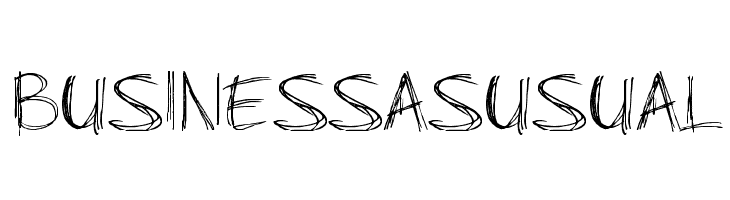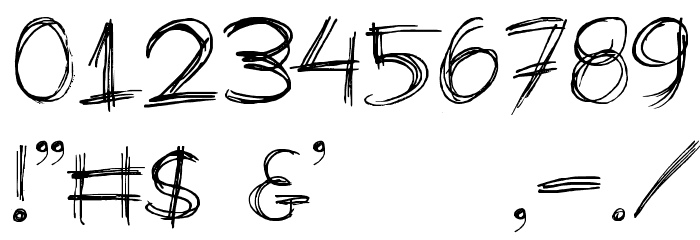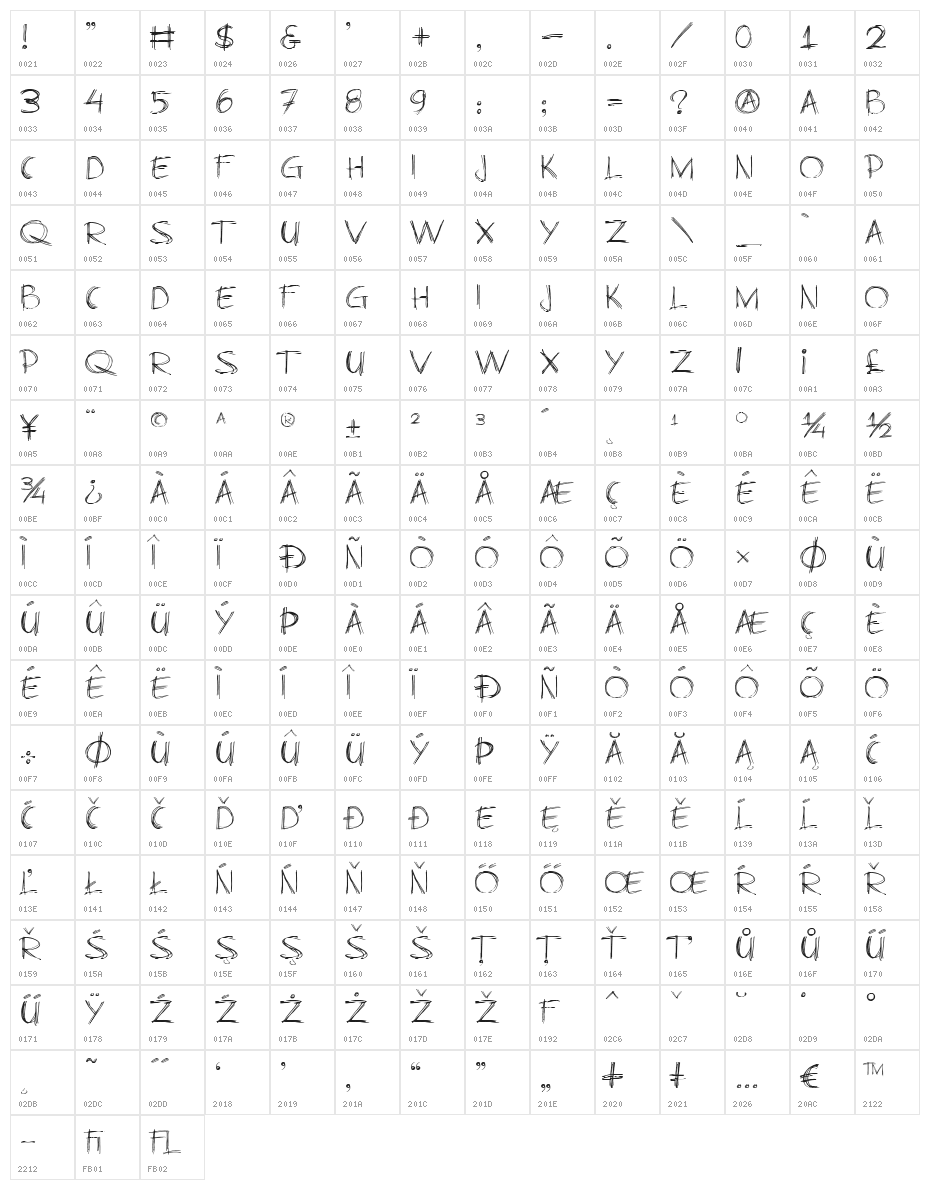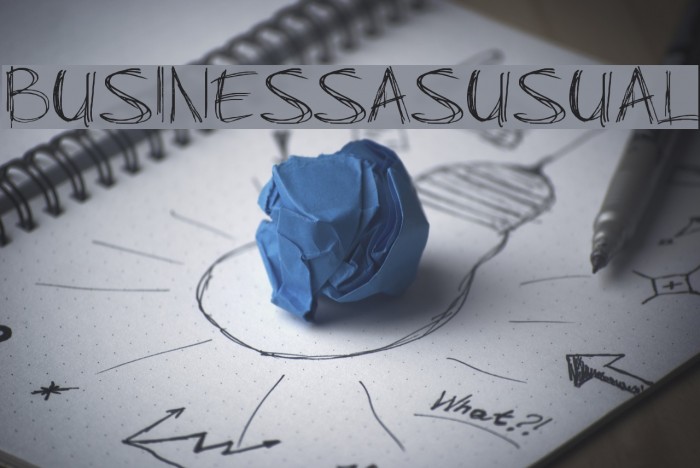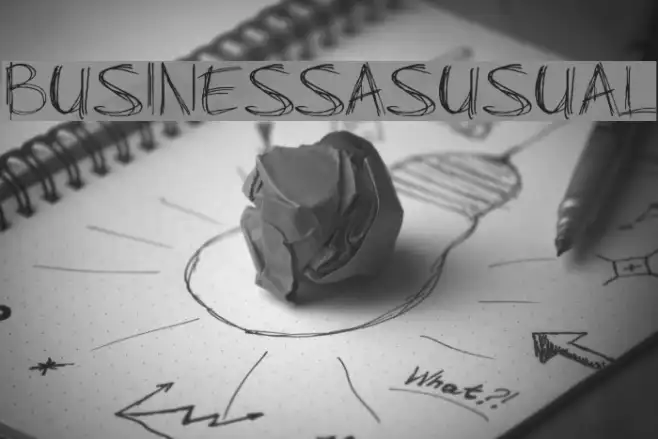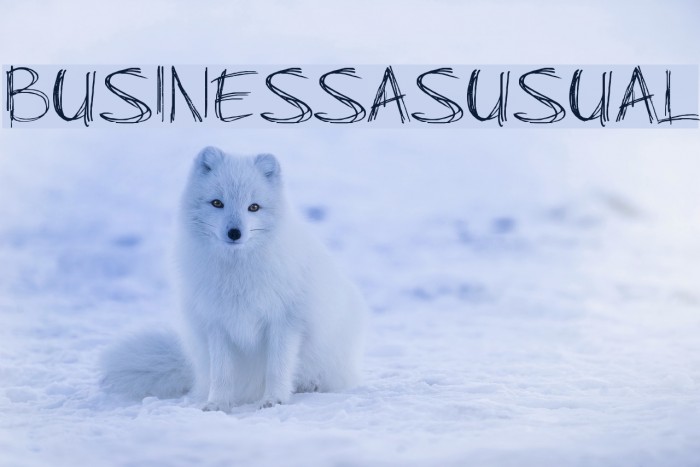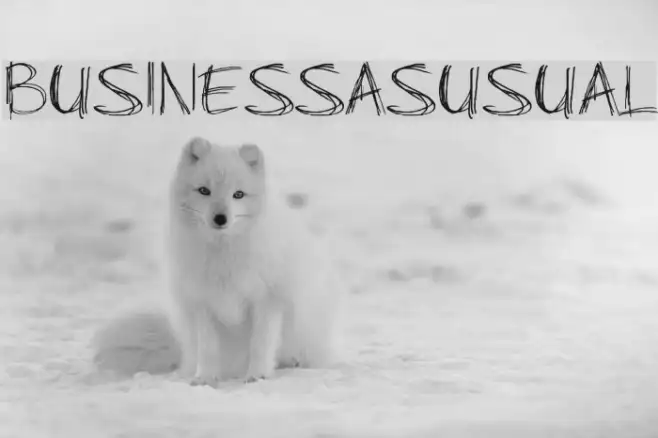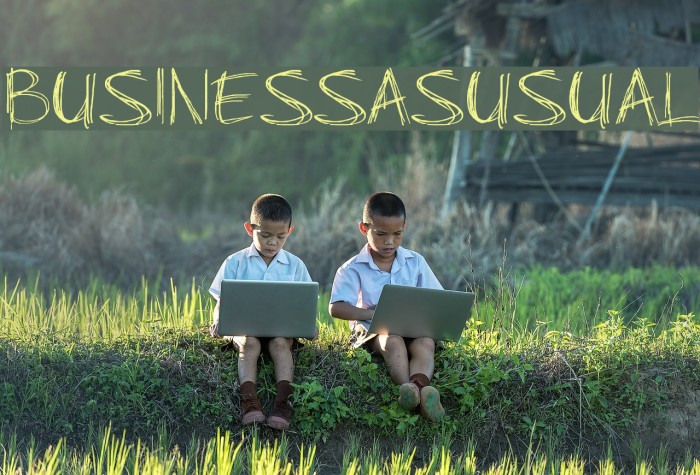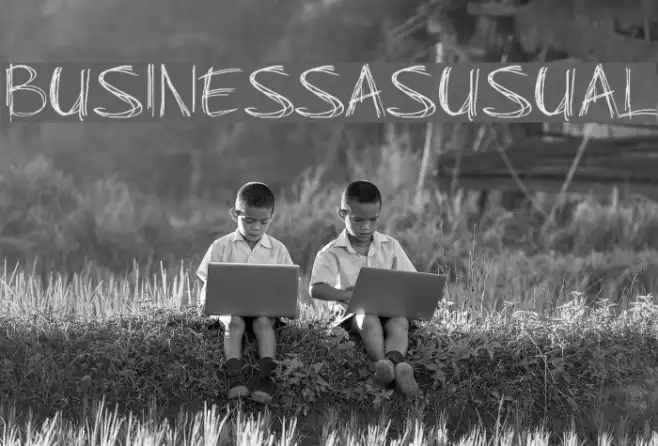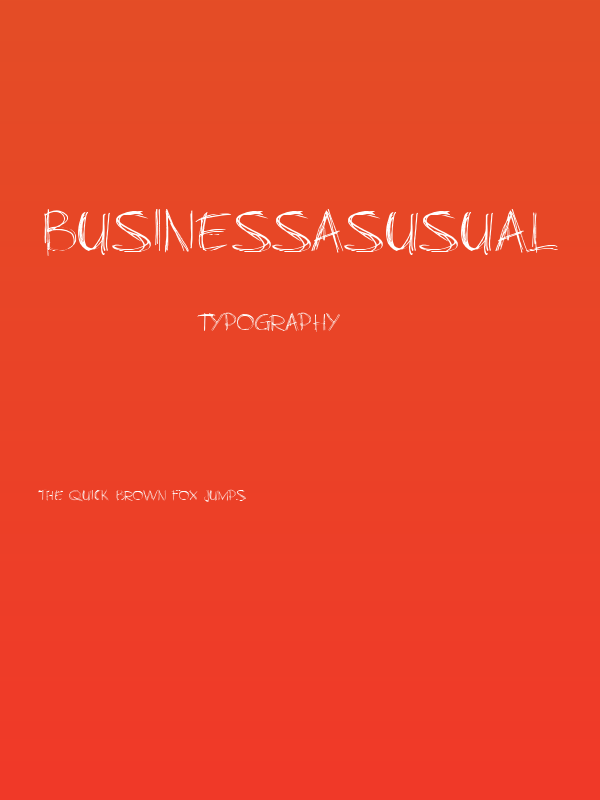
BusinessAsUsual Font
BusinessAsUsual Description
This font features a dynamic and expressive style, characterized by its sketch-like appearance. The strokes are irregular and have a hand-drawn quality, giving it a raw and artistic feel. The uppercase and lowercase letters maintain a consistent height, while the numbers and special characters follow the same energetic design. The overall look is informal and playful, making it ideal for creative projects that require a touch of personality and flair.
| Overall Style | Artistic, Playful |
| Use Case | Logos, Posters, Creative Branding |
| Proposed Projects | Ideal for artistic projects, creative branding, posters, and informal invitations. |